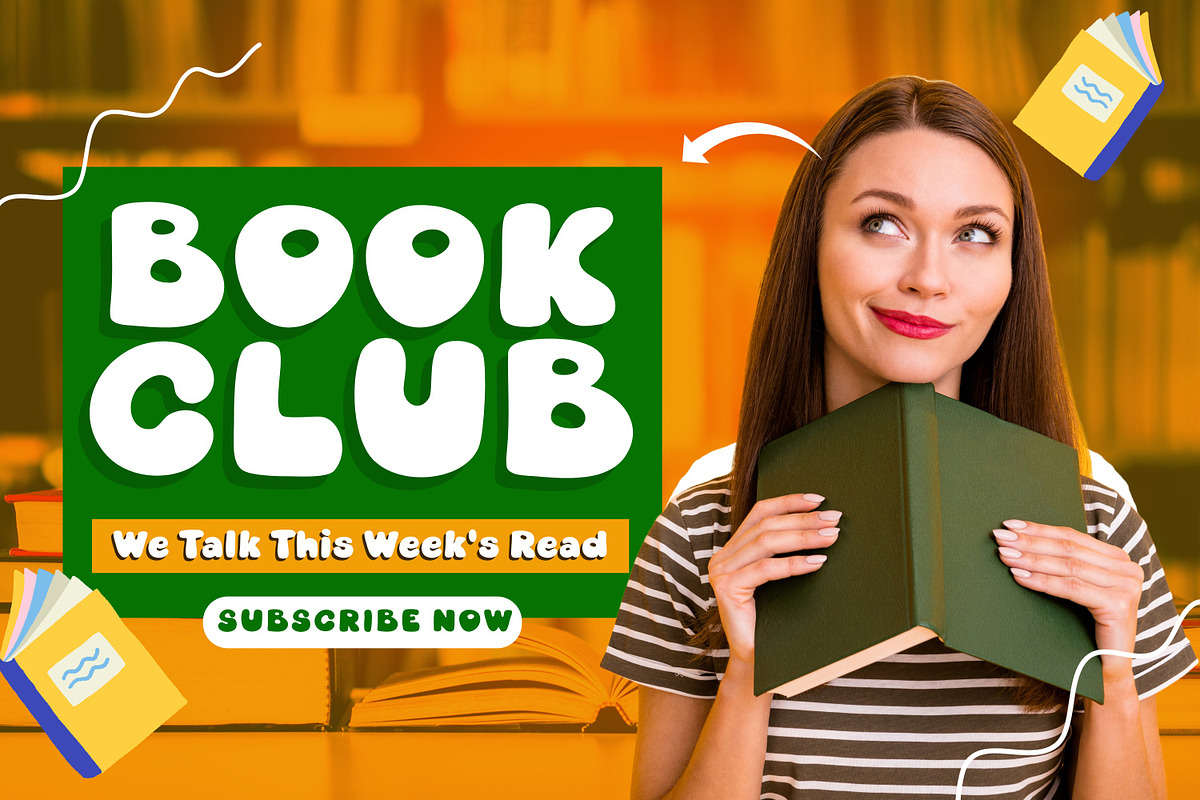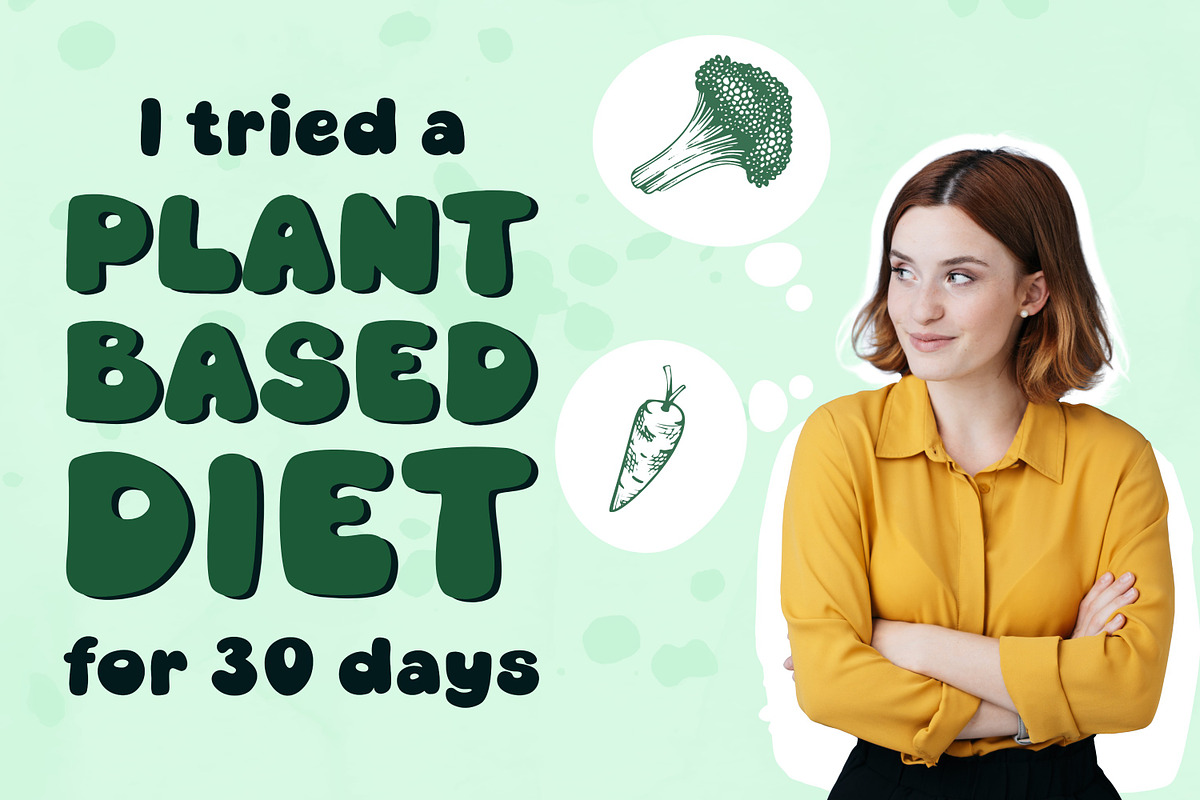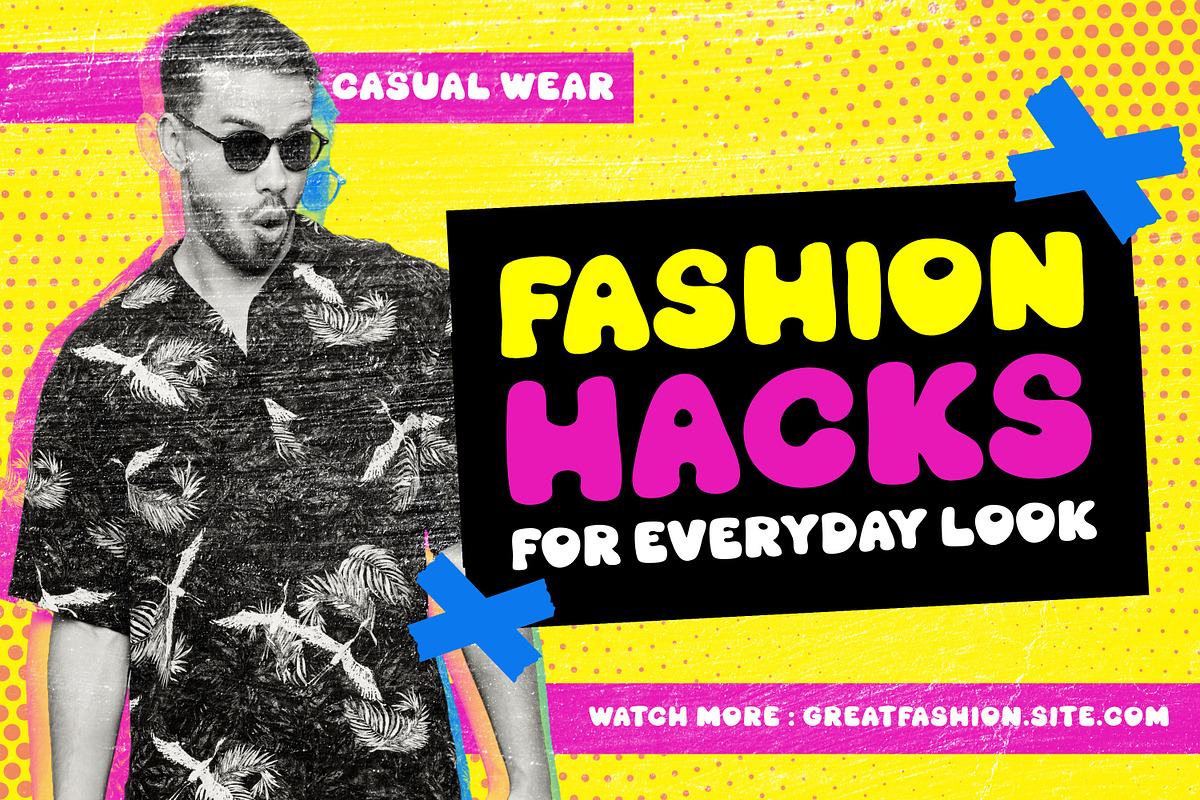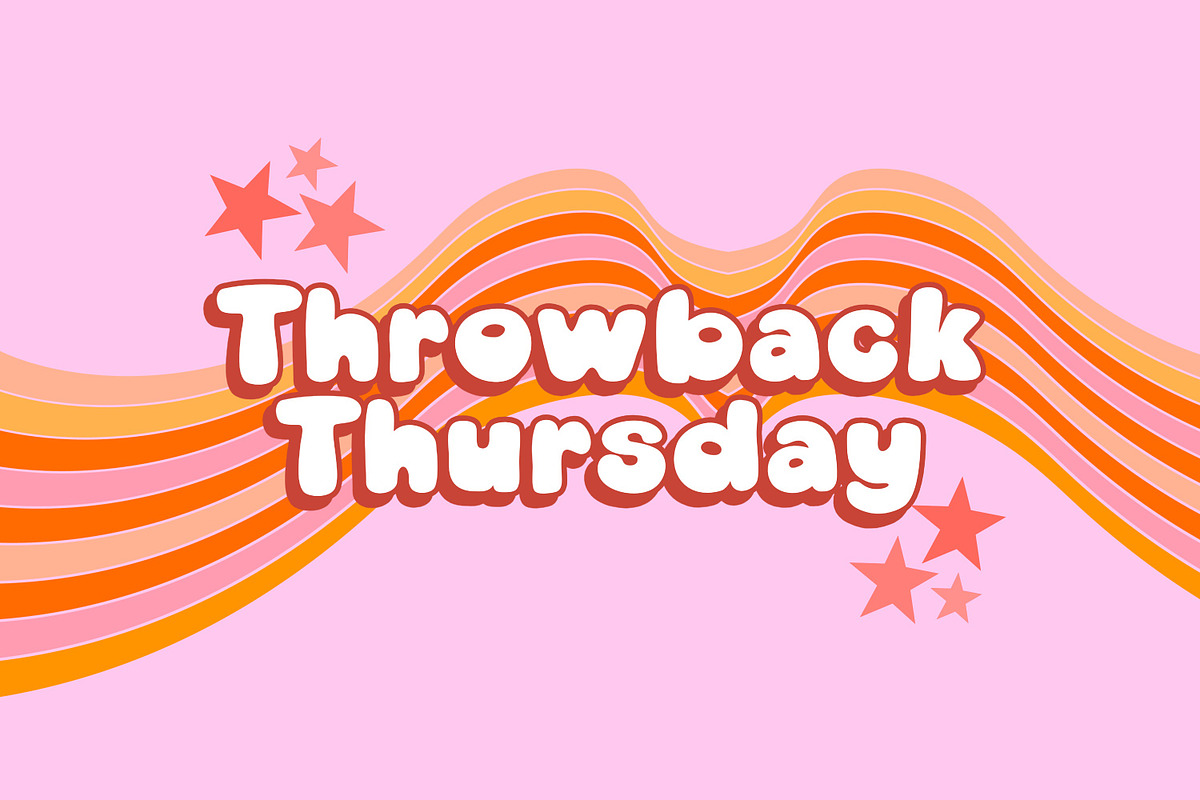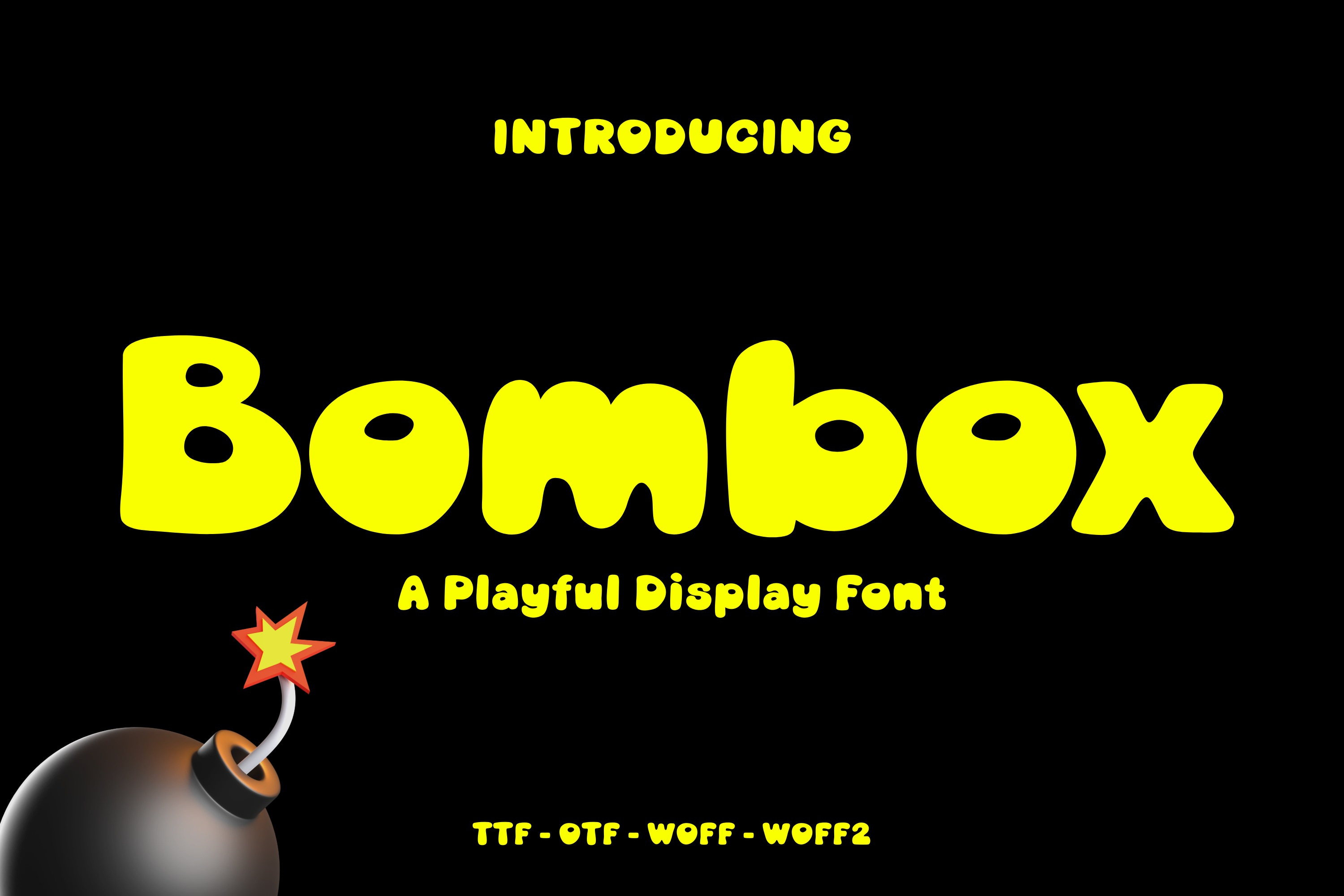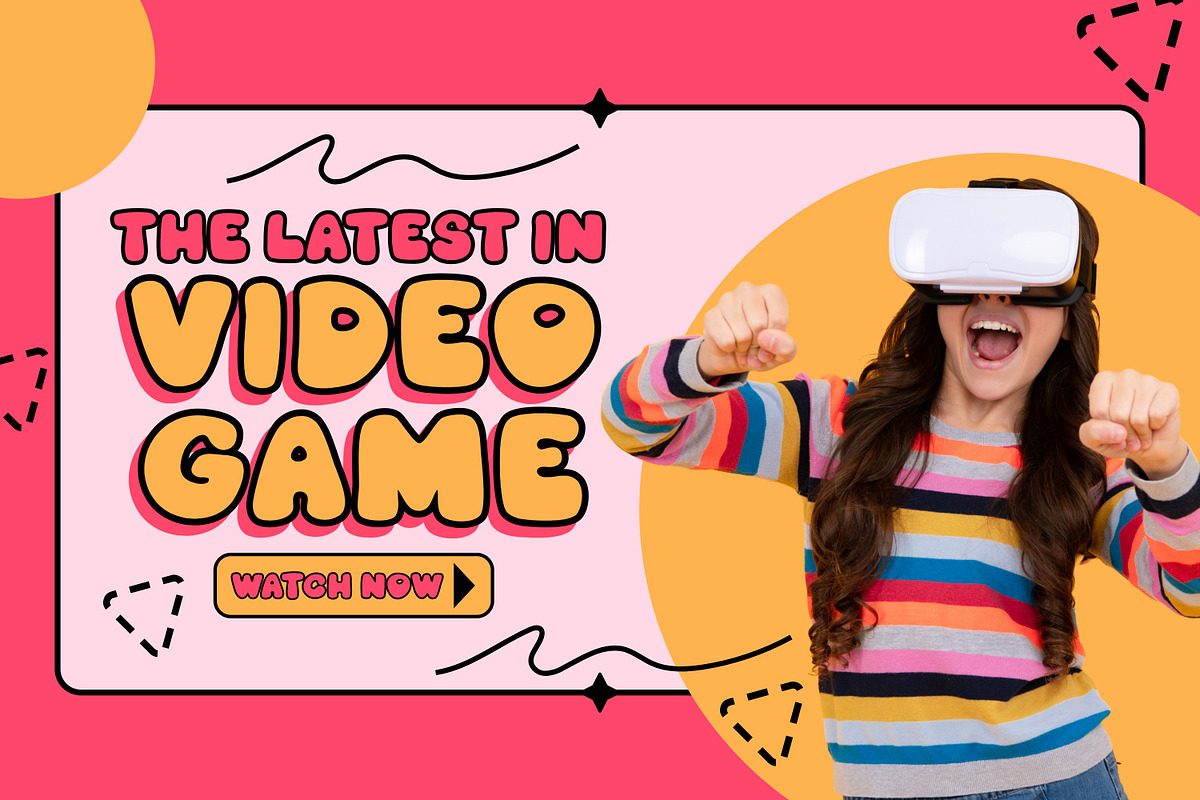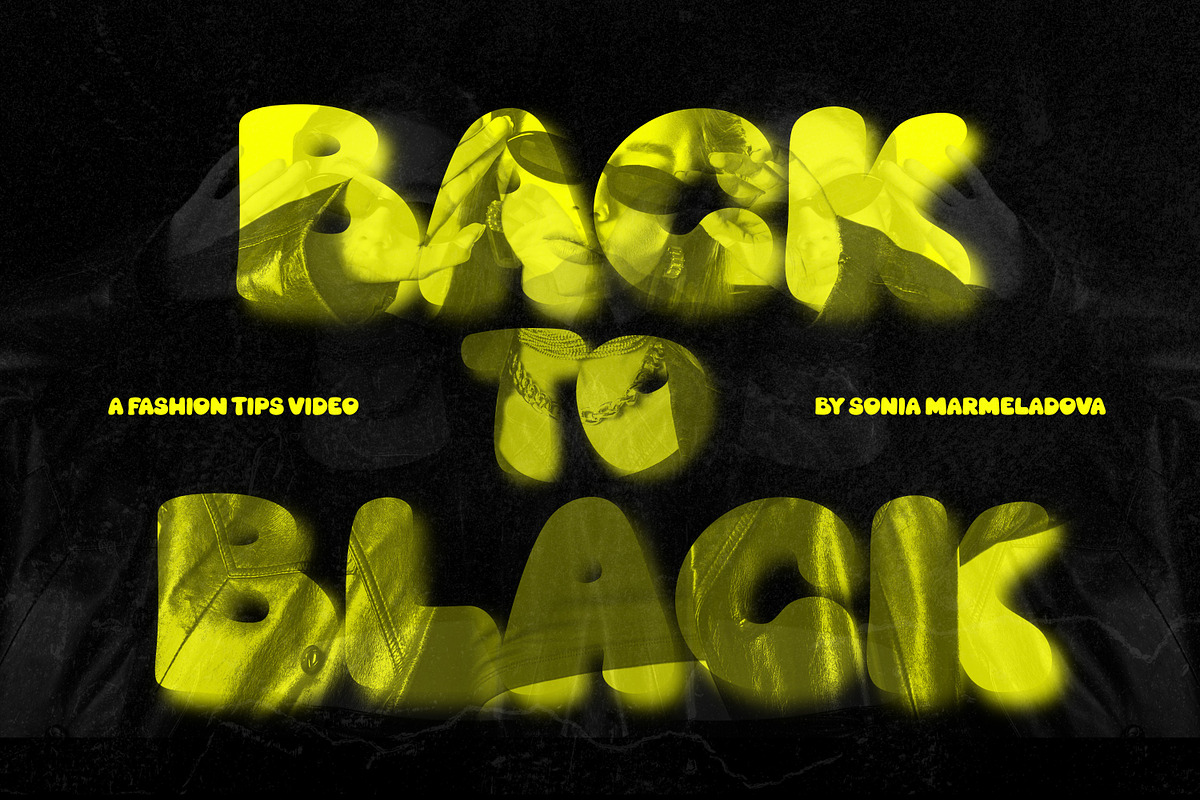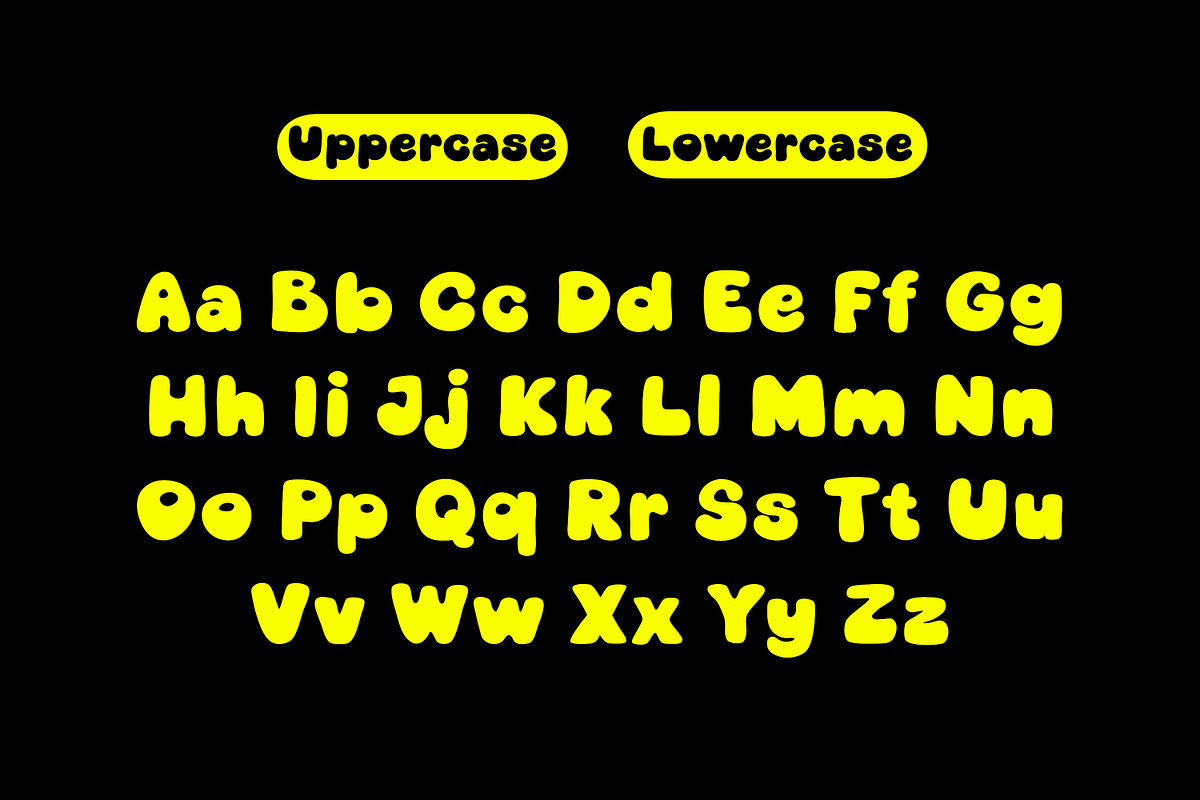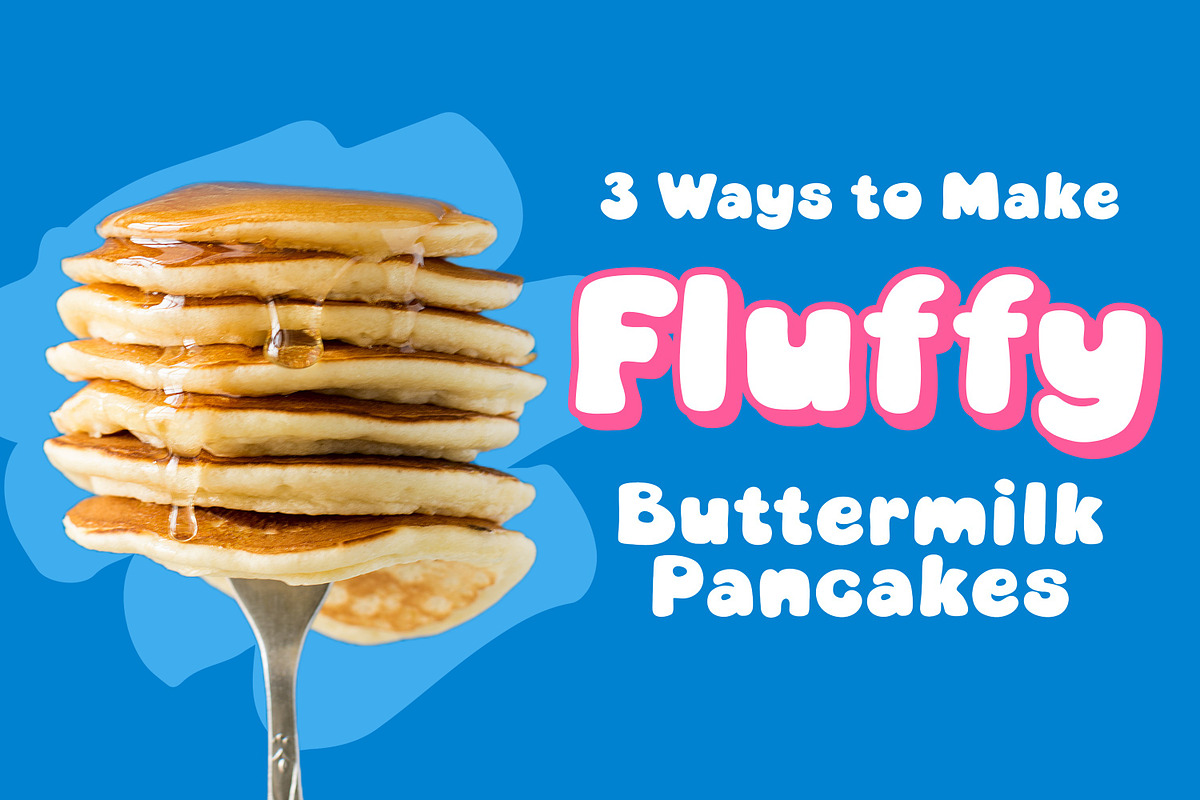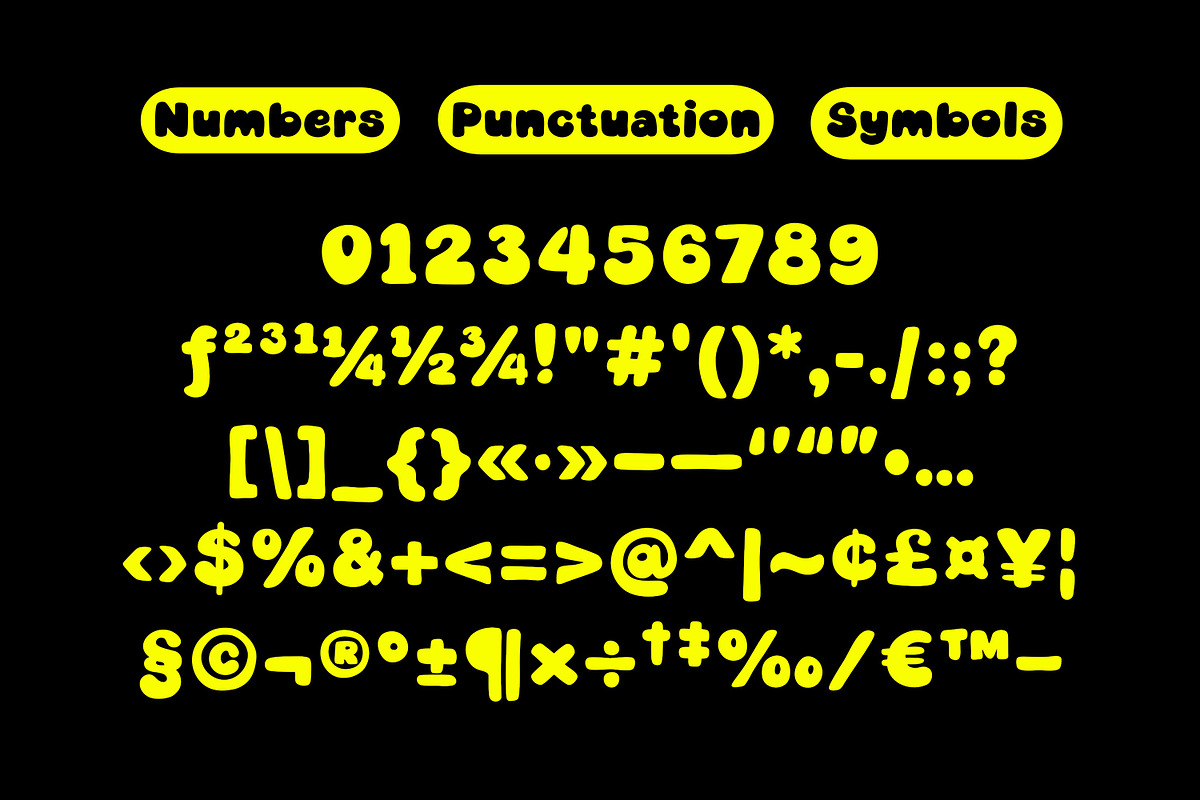
Bombox A Playful Bubble Display Font
Bombox is a bold, bubbly display font bursting with playful energy and fun personality. Inspired by graffiti bubble letters and animated cartoon aesthetics, this typeface features rounded, chubby letterforms that immediately catch the eye.
With its thick strokes and joyful rhythm, Bombox brings an explosive pop of color and excitement to any project. It is the ultimate font choice for children’s books, toy packaging, snack branding, comic book titles, sticker packs, cartoon logos, and vibrant social media graphics.
Kids Toys, & Children’s Branding
Snack, Candy, & Beverage Packaging
Sticker Packs & Doodle Art
Comic Book Covers & Cartoon Titles
Casual Mobile Gaming & YouTube Thumbnails
Playful Event Flyers & Party Invitations